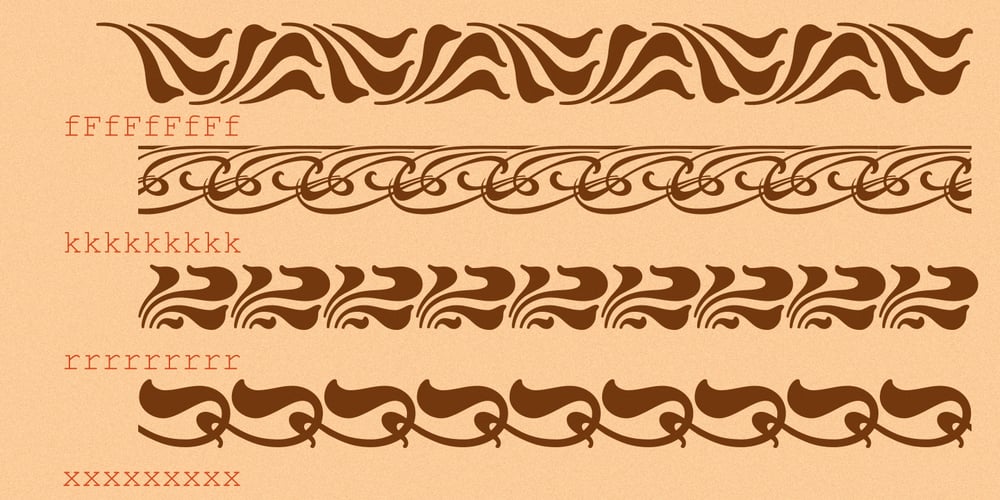
Modern Wave Font Family was designed by Lukyan Turetskyy and published by 2D Typo. Modern Wave contains 1 styles and family package options. Ornamental font, based on samples of Alphonse Mucha, who was an Art Nouveau painter and decorative artist. In this collection assembled typical wavy shape secession.